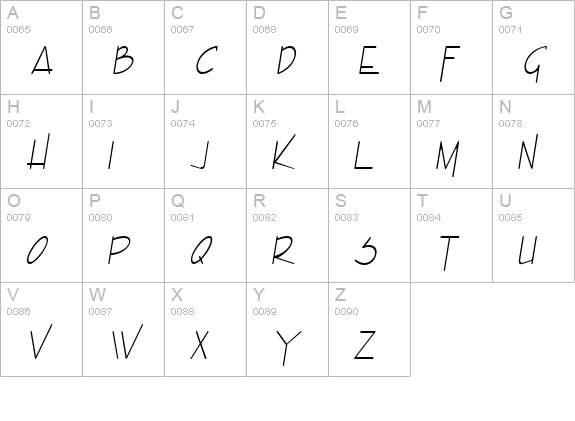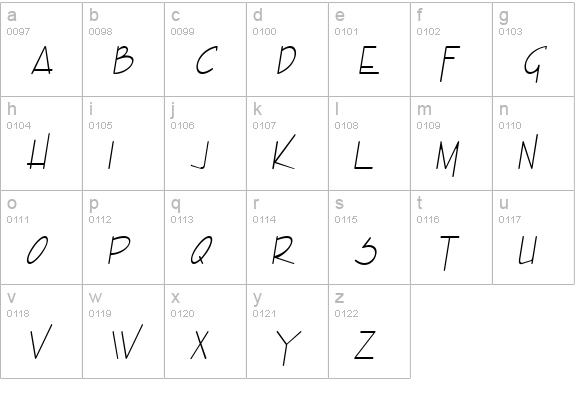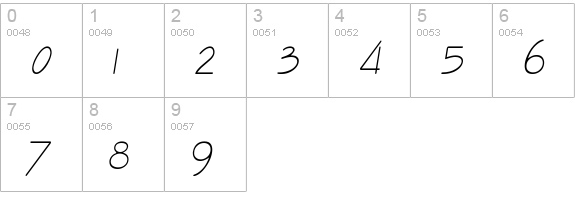
Enview Condensed Light Italic is a refined, elegant, condensed-width, italic variant in the Enview typeface family \xE2\x80\x94 well suited to elegant body text, refined sub-headings, and luxury branding.
Enview Condensed Light Italic font is a sleek and elegant typeface that exudes sophistication and modernity. Its slender and italicized design adds a touch of flair to any project, making it perfect for use in branding, advertising, and editorial design. The gentle slant of the letters gives a sense of movement and energy, making it ideal for conveying a sense of forward motion and progress. This versatile font is free to download at FontsMarket.com, making it accessible to all designers and creatives looking to elevate their work with a touch of refined style. Whether you're creating a logo, designing a website, or crafting a printed piece, Enview Condensed Light Italic font is sure to make a bold statement and leave a lasting impression on your audience. Download it today and take your designs to the next level.